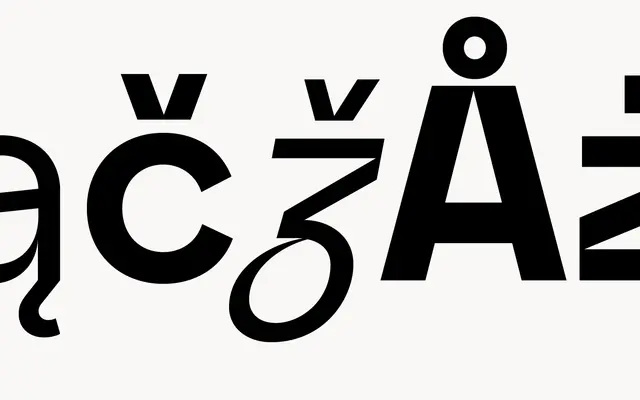
Safiro
atipo foundry · Raul Garcia del Pomar, Ismael Gonzalez (atipo) · 2019
A precise neo-grotesque from atipo summarised as the Swiss style carved like a gemstone, with four weights, italics and tabular figures.
A neo-grotesque sans by atipo, summarised by the studio as the Swiss style carved like a gemstone. Eight styles run across four weights, Regular, Medium, Semibold and Bold, each with a matching italic, and the family carries tabular figures, fractions, superiors and ordinals. Sits in editorial, identity and product work that wants Swiss-school discipline with sharper, more cut detail. Atipo offer Medium as a free download with the rest of the family on a pay what you want basis.
Atipo summarise Safiro as the Swiss style carved like a gemstone, a precise neo-grotesque in four weights with italics and tabular figures.